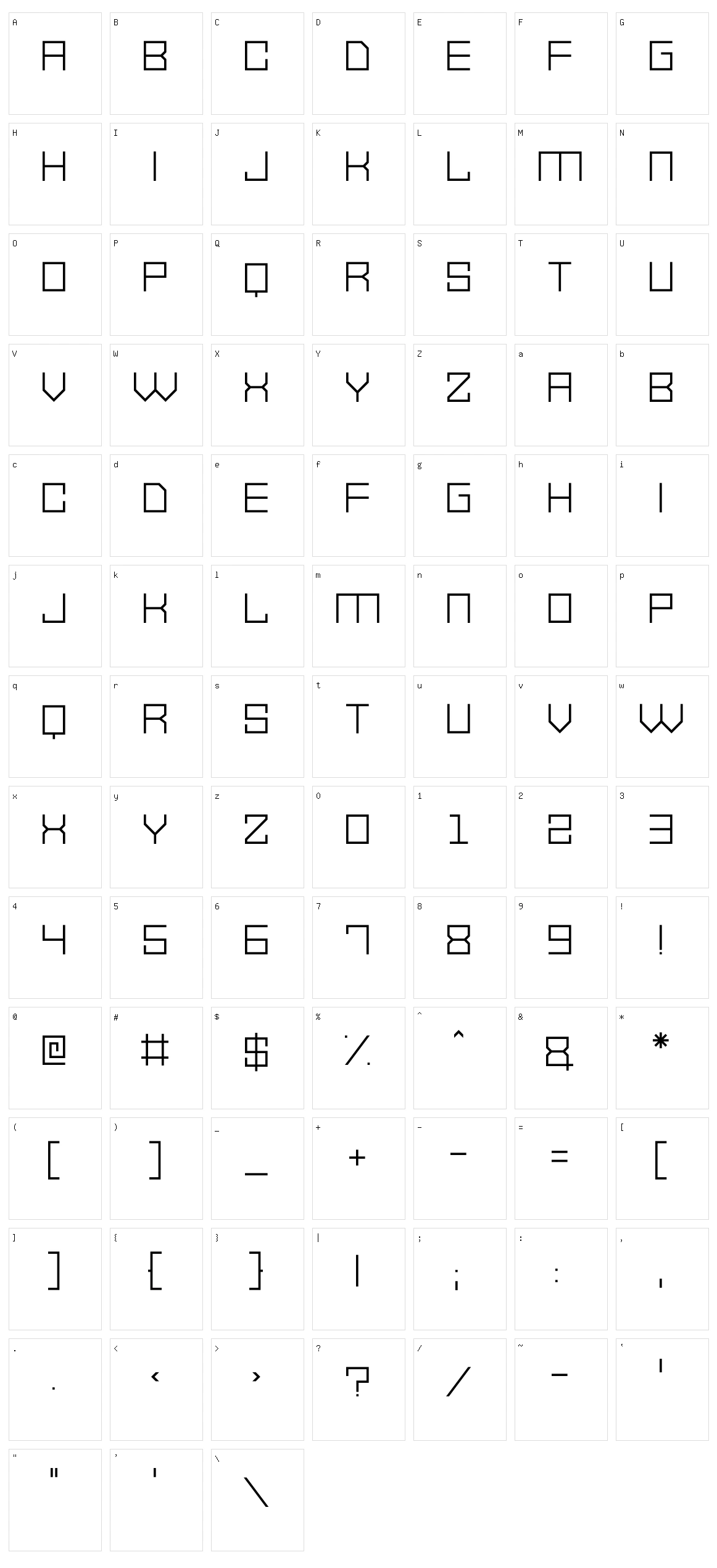
The free font Vector Waves is carefully designed by Hawtpixel, showcasing a thoughtful balance of creativity and usability and falls under the Square font style. When you download the ZIP file, it contains only 15.73 KB of font files, making it lightweight and quick to download. Please review the license details below to understand permitted usage and distribution rights. If license information is not available, we recommend using this font for personal projects only or contacting the author directly for commercial usage permissions.